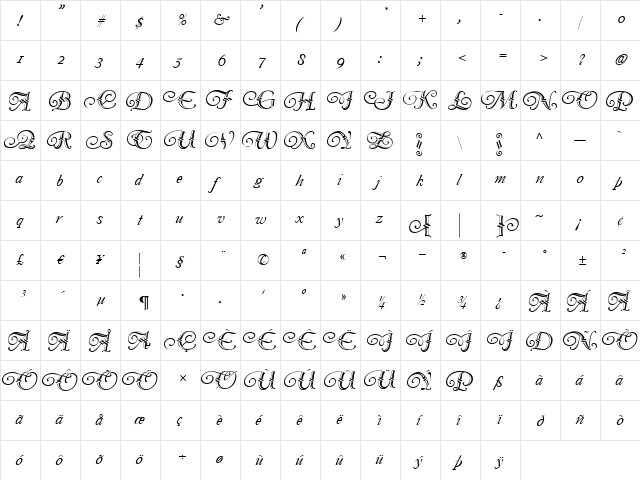
Ransom Clearcut NF Regular Font Preview
Ransom Clearcut NF Regular
Design Context for Ransom Clearcut NF Typeface
Ransom Clearcut NF is a composed and adaptable typeface that performs quietly and consistently across a wide range of design contexts.